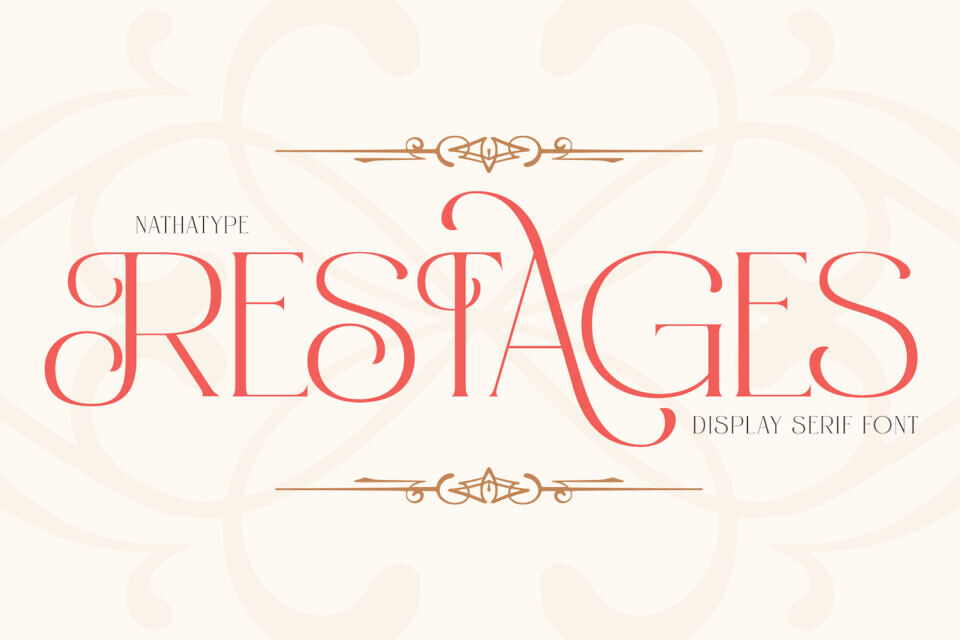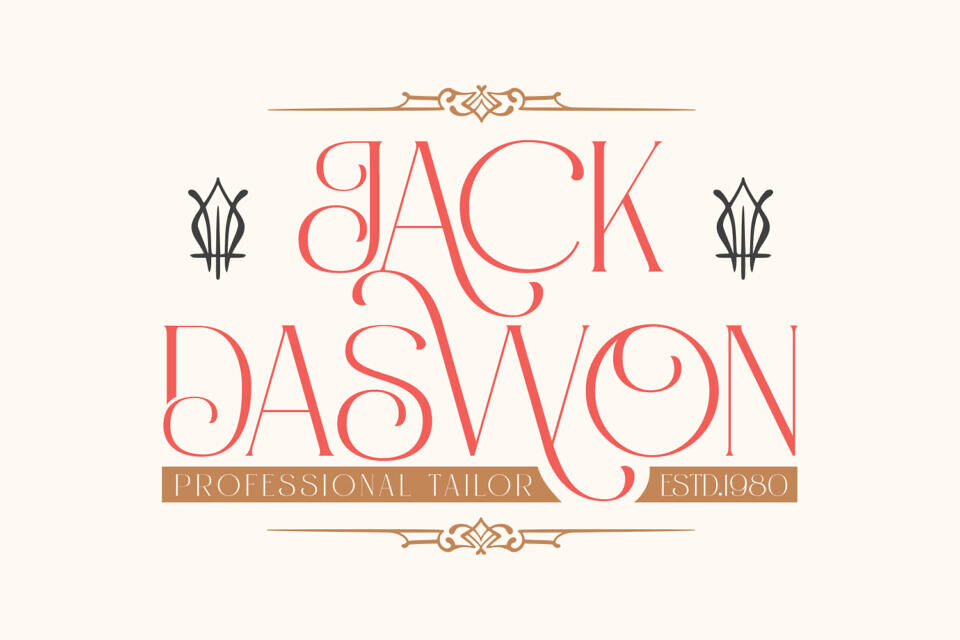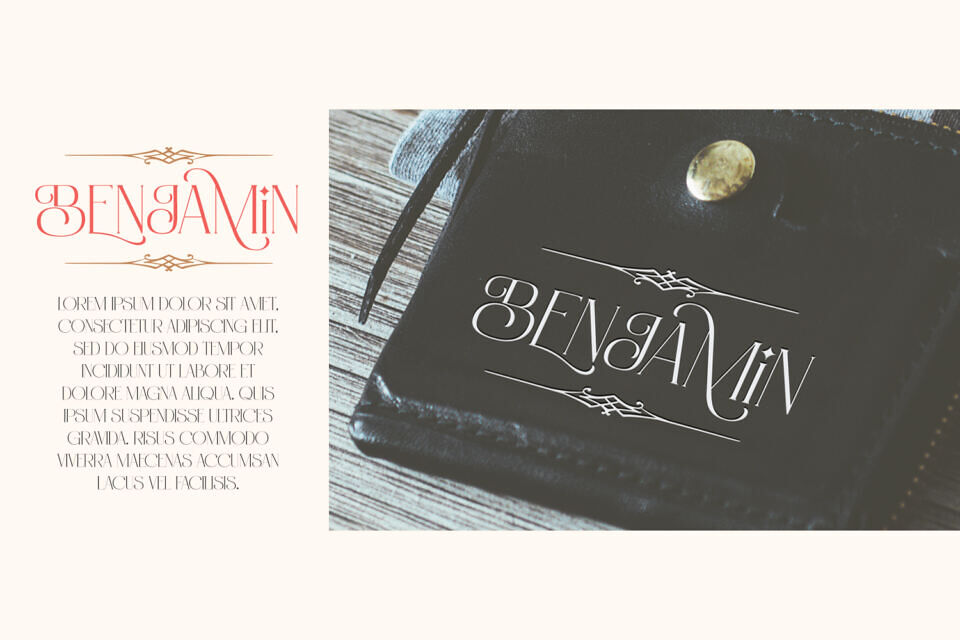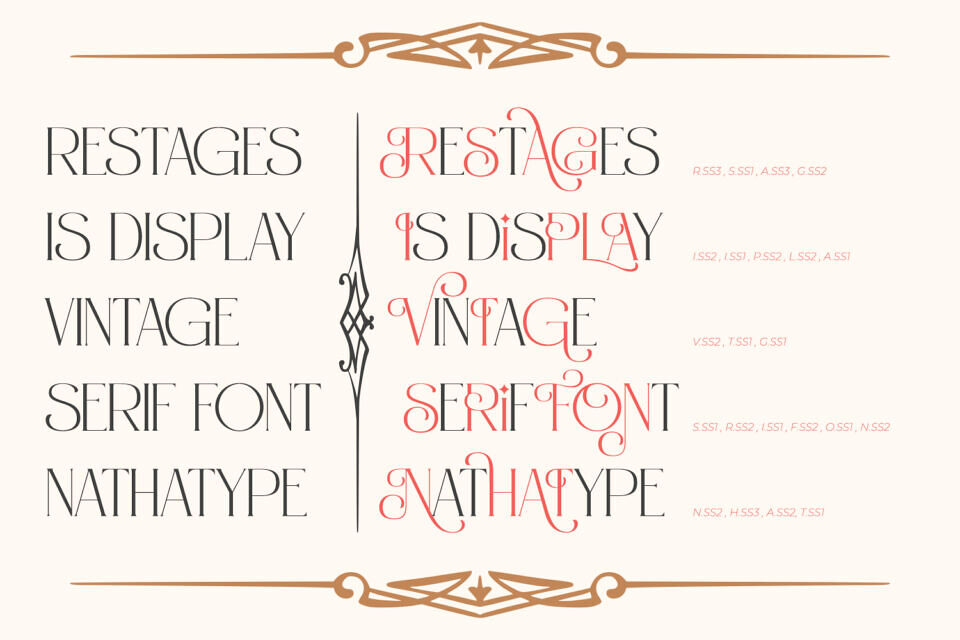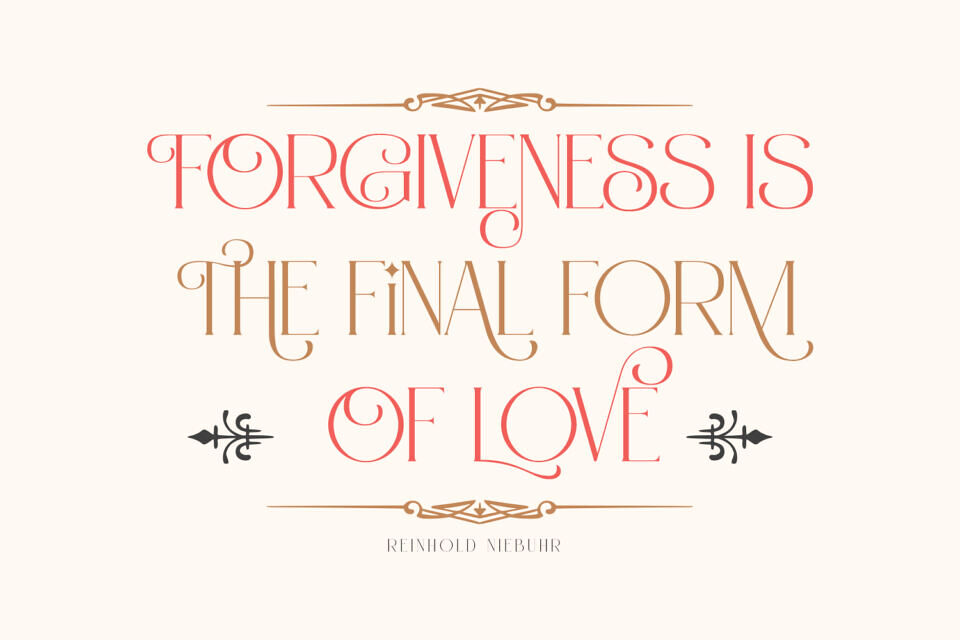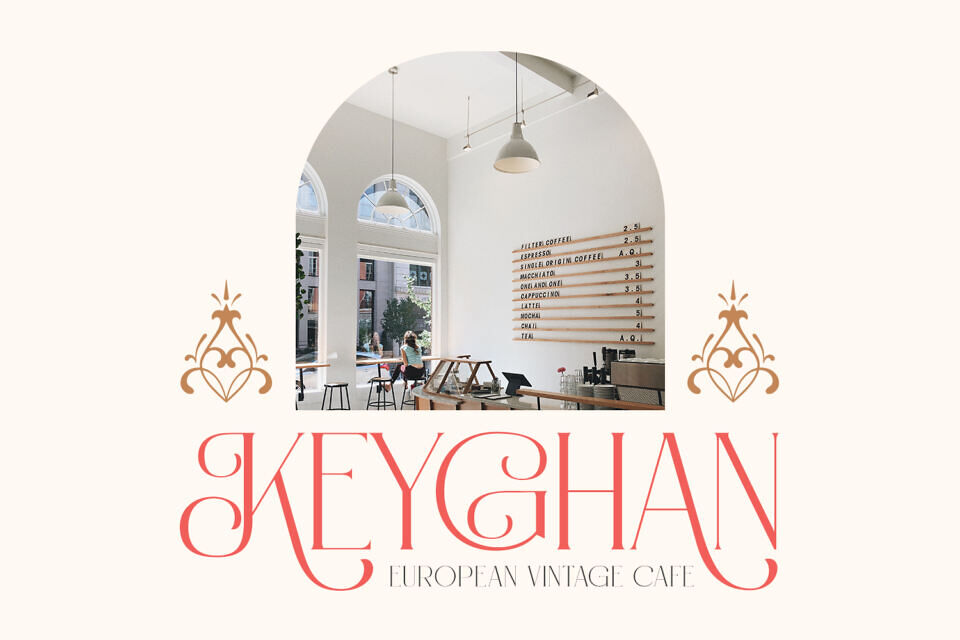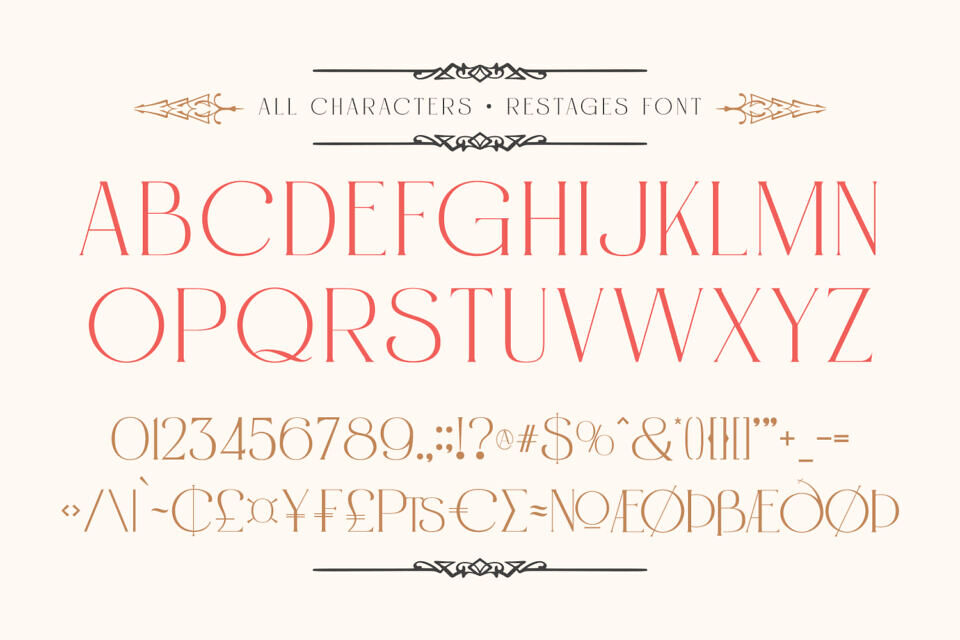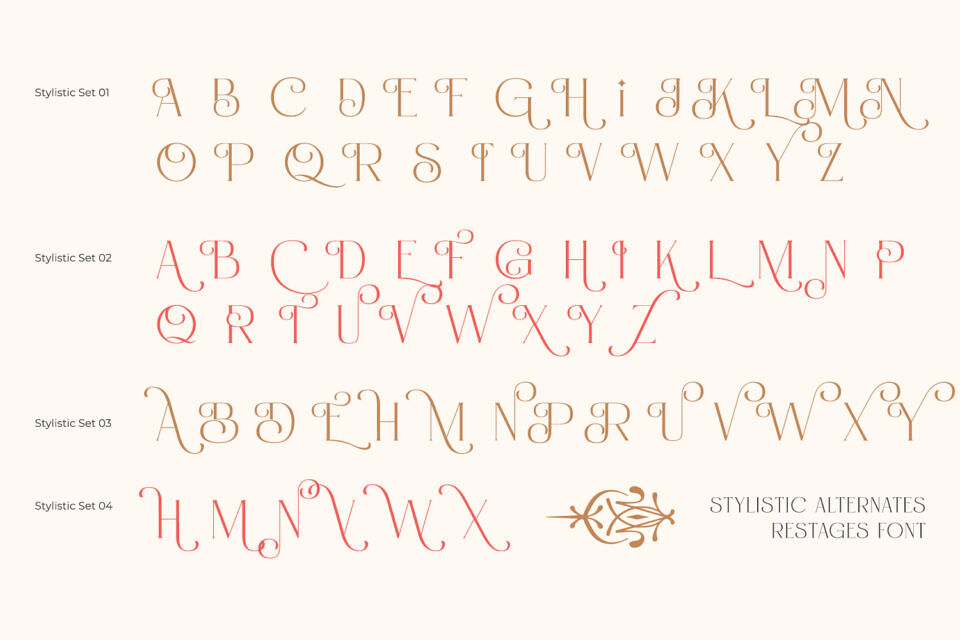
Restages Font
Restages is a capitalized display serif font with less thickness for an effortless readability. This font type is perfect for formal contents because of its stylish, elegant characters to strengthen the impressions delivered. Furthermore, this font is truly legible due to its simple, regular serif forms to ease readers to recognize each letter correctly.
Restages fits best for various design projects, such as brandings, posters, banners, logos, magazine covers, quotes, headings, printed products, invitations, name cards, merchandise, social media, etc.